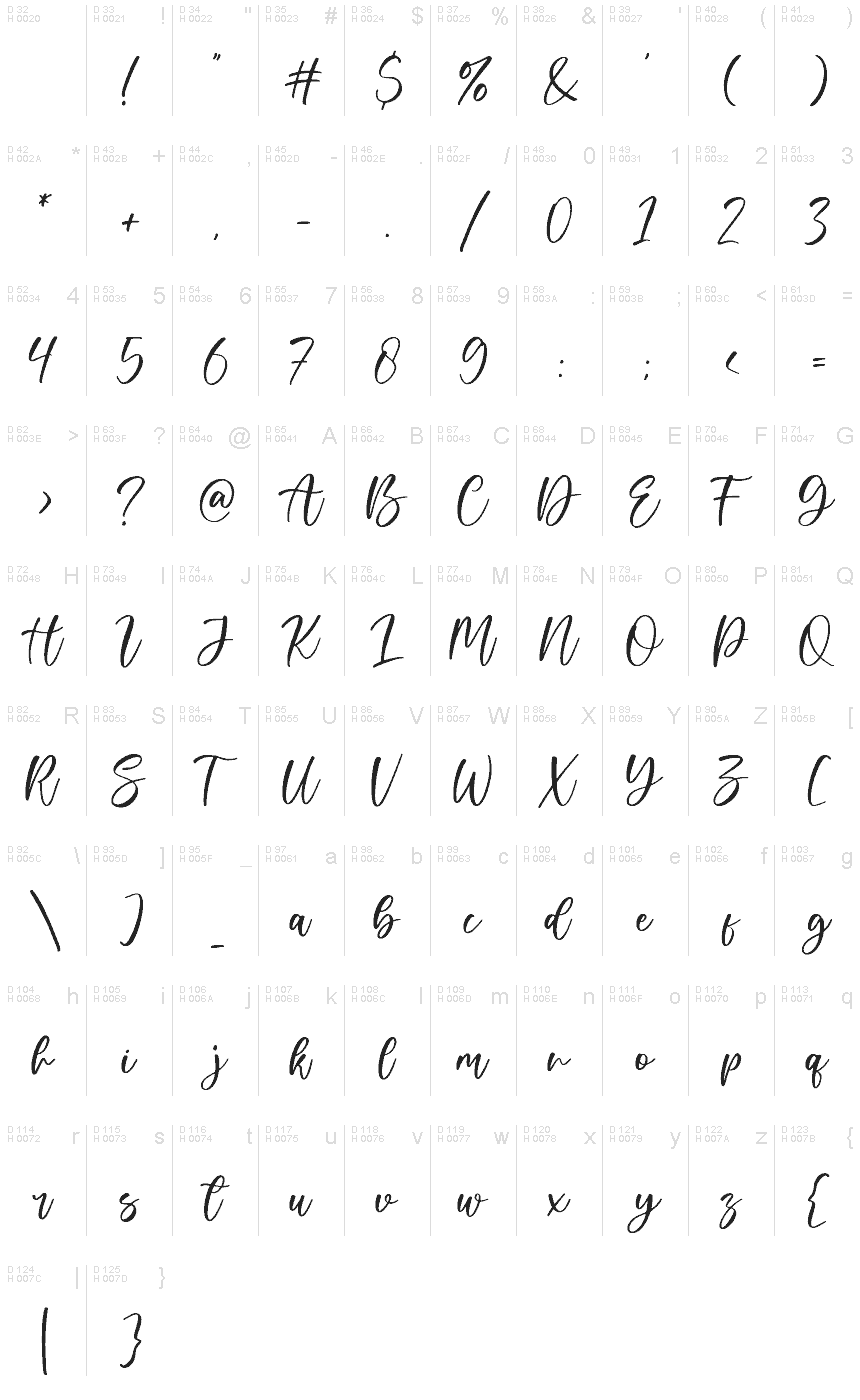
Santica
Santica font, designed by Aestherica Studio, is a free handwritten font that elegantly captures a flowing and expressive style. This modern script brings a signature style to any project, cultivating a romantic atmosphere that’s both chic and refined.